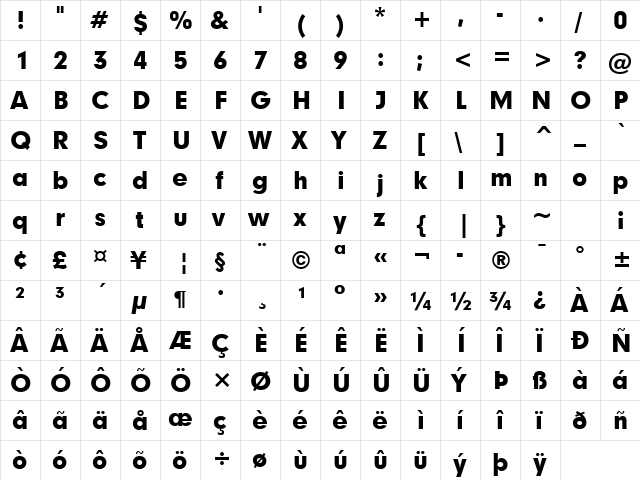
Geometr706 Md BT Black Font Preview
Geometr706 Md BT Black
Design Context for Geometr706 Md BT Typeface
Geometr706 Md BT offers clean, dependable letterforms without strong stylistic allegiance, making it a practical choice for designers who need flexibility.